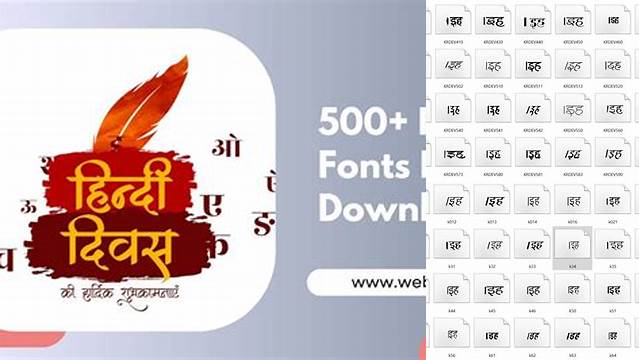
Kruti Dev Font Free Download: Your Ultimate Guide
Are you on the hunt for the Kruti Dev font and looking for a free download? Well, you've landed in the right spot! This guide is your ultimate resource, covering everything from where to download the Kruti Dev font for free to how to install and use it effectively. We'll dive deep into the font's history, its various versions, and how it's used in different contexts. So, whether you're a designer, a writer, or just someone curious about this popular font, stick around. Let's get started! The Kruti Dev font has a rich history, deeply rooted in the world of Hindi and Devanagari script typography. It has become a staple for those working with Hindi text, particularly in the realm of design, content creation, and even official documentation. Understanding its origins and evolution is key to appreciating its widespread use and significance. The Kruti Dev font emerged as a practical solution for typing in Hindi on computers, offering a user-friendly interface for those familiar with the Devanagari script. Before the widespread adoption of Unicode, Kruti Dev, along with other fonts like Devlys, played a crucial role in enabling digital Hindi typesetting. These fonts were instrumental in bridging the gap between traditional pen-and-paper writing and the digital age. The creators of Kruti Dev focused on creating a font that closely mirrored the familiar Hindi handwriting style, making it easier for users to transition from writing by hand to typing on a computer. This ease of use was a major factor in its rapid adoption and popularity. Over time, the font evolved, with different versions released to cater to various needs and preferences. Each version aimed to improve upon the previous one, offering more comprehensive character sets and enhanced readability. It's important to note that while Kruti Dev fonts were initially designed for specific software and operating systems, their compatibility has expanded over the years. Today, you can find versions that work seamlessly on various platforms, ensuring that the font remains accessible to a wide range of users. The widespread use of Kruti Dev can be attributed to several factors, including its user-friendliness, the availability of free downloads, and its extensive character set that supports a wide array of Hindi glyphs. The font's straightforward design and the ease with which users can type in Hindi have made it a favorite among designers, writers, and content creators. Furthermore, the availability of free downloads has democratized its use, making it accessible to everyone regardless of their budget. As you explore the world of Kruti Dev fonts, you'll come across different versions, each with its unique features and characteristics. Some of the most popular versions include Kruti Dev 010, 050, and 011, each offering slightly different designs and levels of support for Hindi characters. Keep reading to learn more about how to download and install the Kruti Dev font on your computer. You'll be able to find tutorials, tips, and tricks to get you started with using the font. The font continues to be an important part of the digital landscape, and its influence can still be seen. Let's delve deeper into the specifics of downloading and using this amazing font.
Using Kruti Dev Font: Tips and Tricks for Effective Use
Now that you have the Kruti Dev font installed, it's time to start using it! Here are some tips and tricks to help you use the font effectively in your projects. First, familiarize yourself with the keyboard layout or input method for Hindi. This is crucial for typing Hindi characters accurately. There are various keyboard layouts available, including phonetic layouts and traditional Hindi layouts. Experiment with different layouts to find the one that suits your needs. Many operating systems offer built-in Hindi keyboard layouts. You can also download third-party keyboard software or use online tools to assist with typing in Hindi. When typing, make sure your application is set to support Hindi text. In some applications, you may need to select the correct language setting or character encoding to ensure that the Hindi characters display correctly. If you're using the font in a word processor, design software, or other applications, check the settings to ensure that the language is set to Hindi. When working with the Kruti Dev font, it is essential to select the appropriate font size and style for your text. The font size will affect the readability of your text, and the font style can enhance its visual appeal. Consider the context in which you are using the font and choose a size and style that complement your design. Keep in mind that the appearance of the text will vary depending on the application and the specific features it supports. Some applications may offer advanced formatting options, such as kerning, tracking, and ligatures, which can further improve the visual quality of your text. When it comes to choosing the right font style, consider the message you want to convey and the overall design of your project. The Kruti Dev font typically does not offer many different styles, but you may be able to use bold or italic formatting to emphasize text. Also, ensure that you're using the correct character encoding if necessary. Character encoding ensures that your text is displayed correctly. For Hindi text, UTF-8 encoding is commonly used. Your application should support UTF-8 encoding by default. However, if you encounter any display issues, check your application's settings to make sure that the correct encoding is selected. Another thing to think about is the context in which you're using the font. Is it for a website, a document, or a design project? The best way to use the font will depend on the specific requirements of each project. For example, when designing for a website, consider the font's readability on different screen sizes and devices. If you're creating a document, make sure the font is legible and consistent with the overall design of the document. You can use the font to create headings, body text, and other elements. Make sure that you use the font's different styles to emphasize essential points and create a visually appealing layout. Keep in mind that different versions of the Kruti Dev font may have slightly different character sets and features. Some versions may support a wider range of Hindi characters, while others may offer specific design elements. Familiarize yourself with the features of the version you're using. You should always double-check your work for accuracy. Proofread your text carefully to catch any typing errors or formatting mistakes. Make sure that all the Hindi characters are displaying correctly and that the text is easy to read. If you encounter any issues or need further assistance, there are several resources available. Online forums, tutorials, and guides can provide helpful tips and troubleshooting solutions. With these tips and tricks, you'll be well-equipped to use the Kruti Dev font effectively in your projects and create stunning visual content in Hindi. Remember to be patient, experiment, and enjoy the process of working with this amazing font. Let's look at some frequently asked questions about the font.
Frequently Asked Questions About Kruti Dev Font
Here are some frequently asked questions (FAQs) about the Kruti Dev font to provide you with additional insights and address common queries. First, what is the Kruti Dev font used for? The Kruti Dev font is primarily used for typing in Hindi, offering a user-friendly interface for those familiar with the Devanagari script. It's widely used in design, content creation, and official documentation. Is the Kruti Dev font free to download and use? Yes, the Kruti Dev font is generally available as a free download for personal use. However, it's essential to check the specific terms of the license, especially if you plan to use it for commercial projects. Where can I download the Kruti Dev font? You can download the Kruti Dev font from various websites, including design resource websites, font archives, and software download platforms. Always download from reputable sources to ensure safety. How do I install the Kruti Dev font on Windows? On Windows, right-click the font file and select “Install” or drag and drop the font files into the “Fonts” folder in the Control Panel. How do I install the Kruti Dev font on a Mac? On a Mac, double-click the font file to open it in Font Book, then click “Install Font” or drag and drop the font files into the Font Book application. What is the difference between Kruti Dev 010, 050, and 011? These are different versions of the Kruti Dev font, each with its unique design and level of support for Hindi characters. Experiment with each one to find the one that you prefer. How do I type in Hindi using the Kruti Dev font? You will need to use a Hindi keyboard layout or input method. You can either use a phonetic layout, which maps Hindi characters to English letters, or a traditional Hindi keyboard layout. Can I use the Kruti Dev font for commercial purposes? The font is often free to use, but it is important to verify the license before using it for commercial purposes. Is there any specific software needed to use the Kruti Dev font? No, you don't need any special software to use the Kruti Dev font. It's compatible with most word processors, design software, and other applications. What if I can't find the Kruti Dev font in my application? After installing the font, restart the application you're using. If you still can't find it, check the font menu and ensure that the application supports the font. If you have any problems installing the font, try restarting your computer to refresh the font cache. Where can I find more tutorials or help? You can find tutorials and support on various websites and forums that specialize in design and font usage. Check out online resources for more detailed guides. We hope these FAQs have been helpful. By using the Kruti Dev font effectively, you can create visually stunning content in Hindi. Keep experimenting and improving your skills. Happy designing! If you have any further questions, feel free to consult online resources and communities.